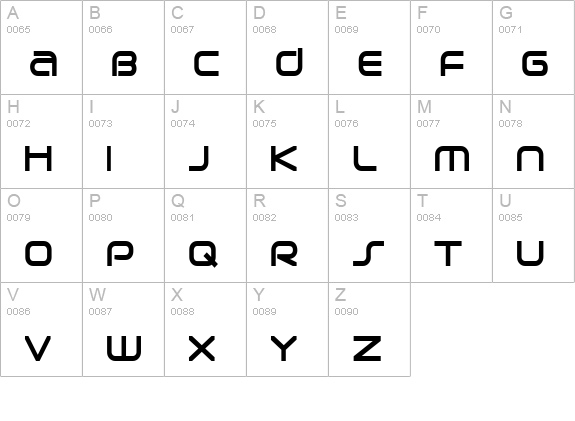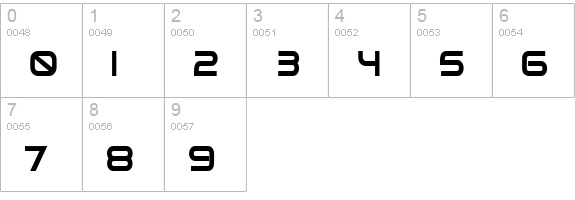
Birdman Bold is a strong, high-contrast variant in the Birdman typeface family \xE2\x80\x94 well suited to headlines, attention-grabbing titles, and strong calls-to-action.
Introducing Birdman Bold, a striking and eye-catching font that commands attention with its bold and dynamic design. This versatile typeface exudes confidence and modernity, making it perfect for a wide range of projects, from branding to editorial design. With its clean lines and sharp edges, Birdman Bold is sure to make a bold statement in any creative endeavor. What's even better is that Birdman Bold is available for free download at FontsMarket.com. This means you can easily access this stylish font and incorporate it into your projects without any cost. Don't miss out on the opportunity to elevate your designs with the impactful Birdman Bold font – download it today and let your creativity soar!